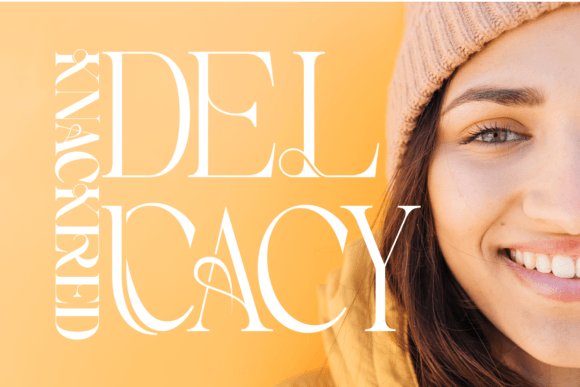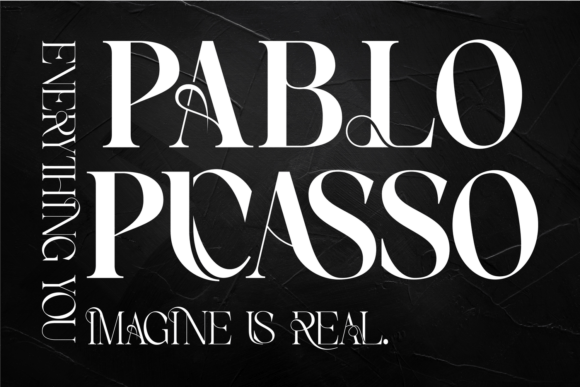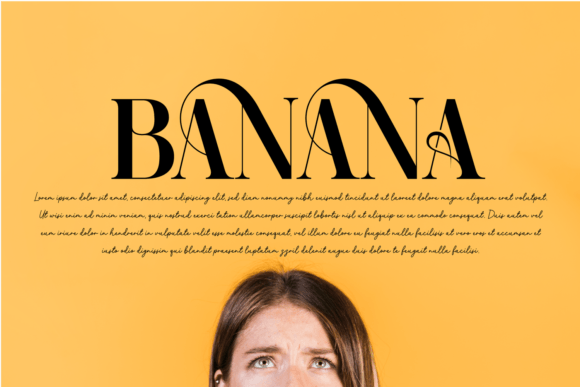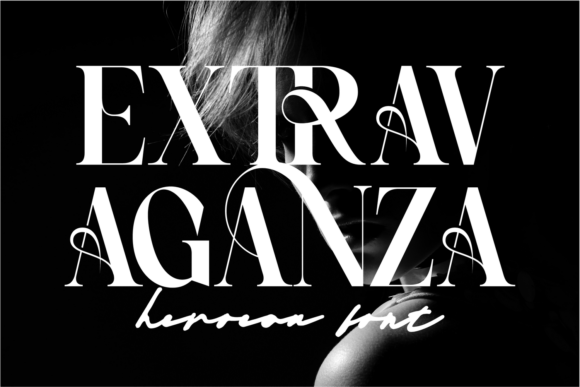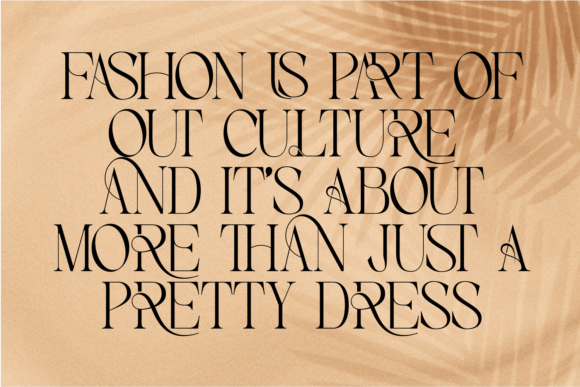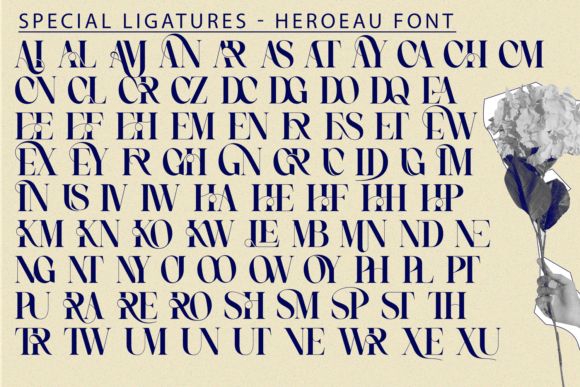
Introduction to Heroeau Elegant Font
Heroeau Elegant Font is a luxury serif font.
Create luxury, gorgeous headlines, and elegant designs with a vintage flair Its stylish design is perfect for creating a classic and contemporary feel in your projects.
Key Features of Heroeau Elegant Font
Why Choose Heroeau Elegant Font?